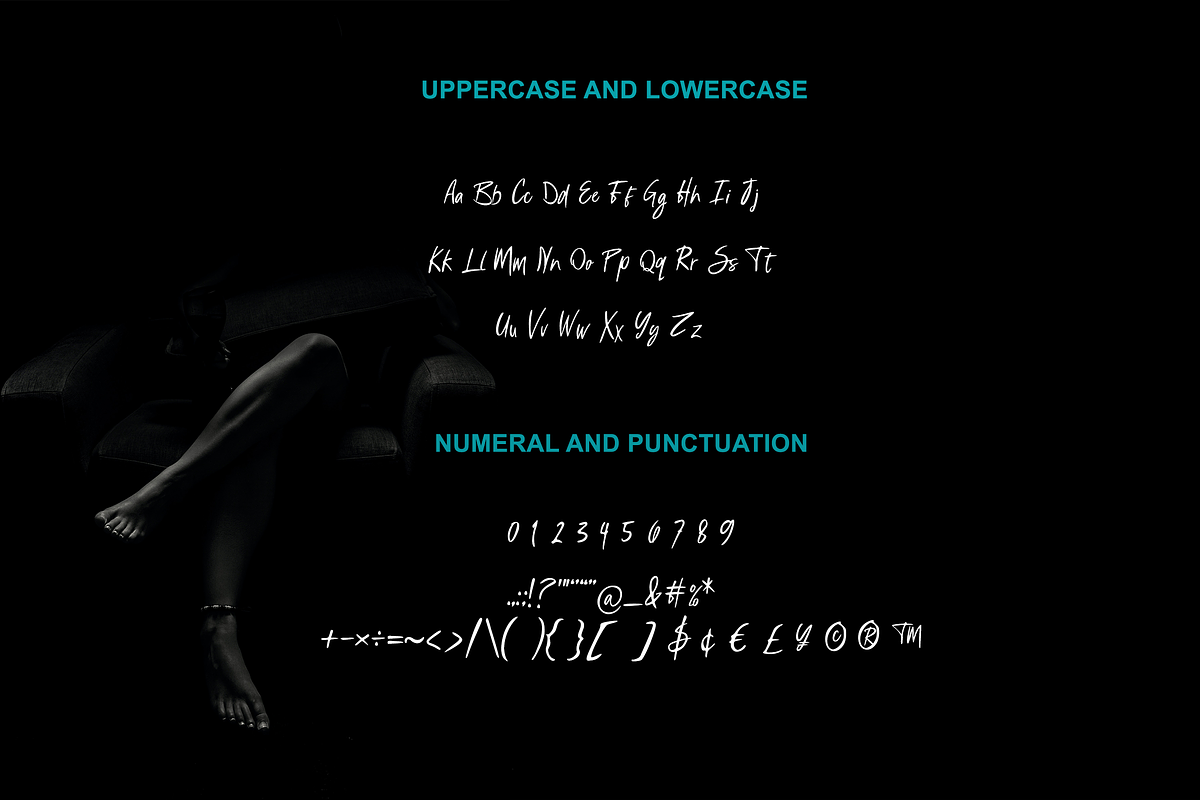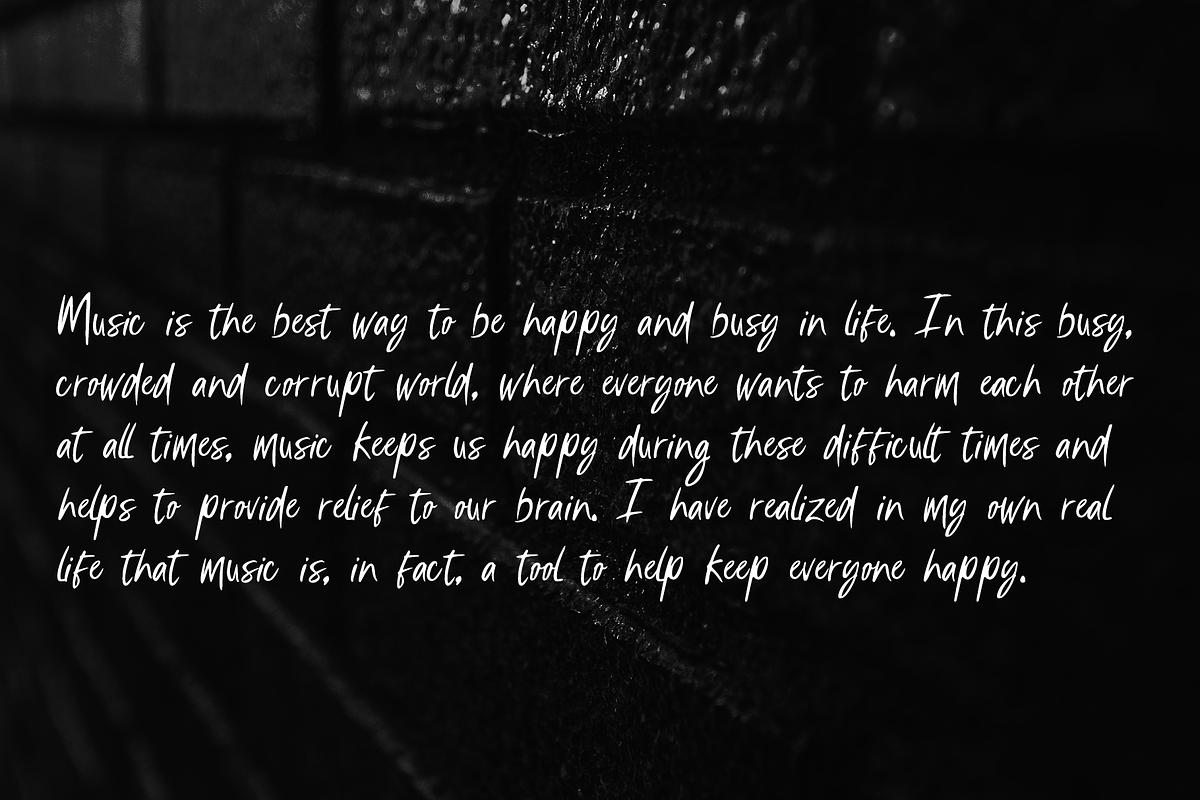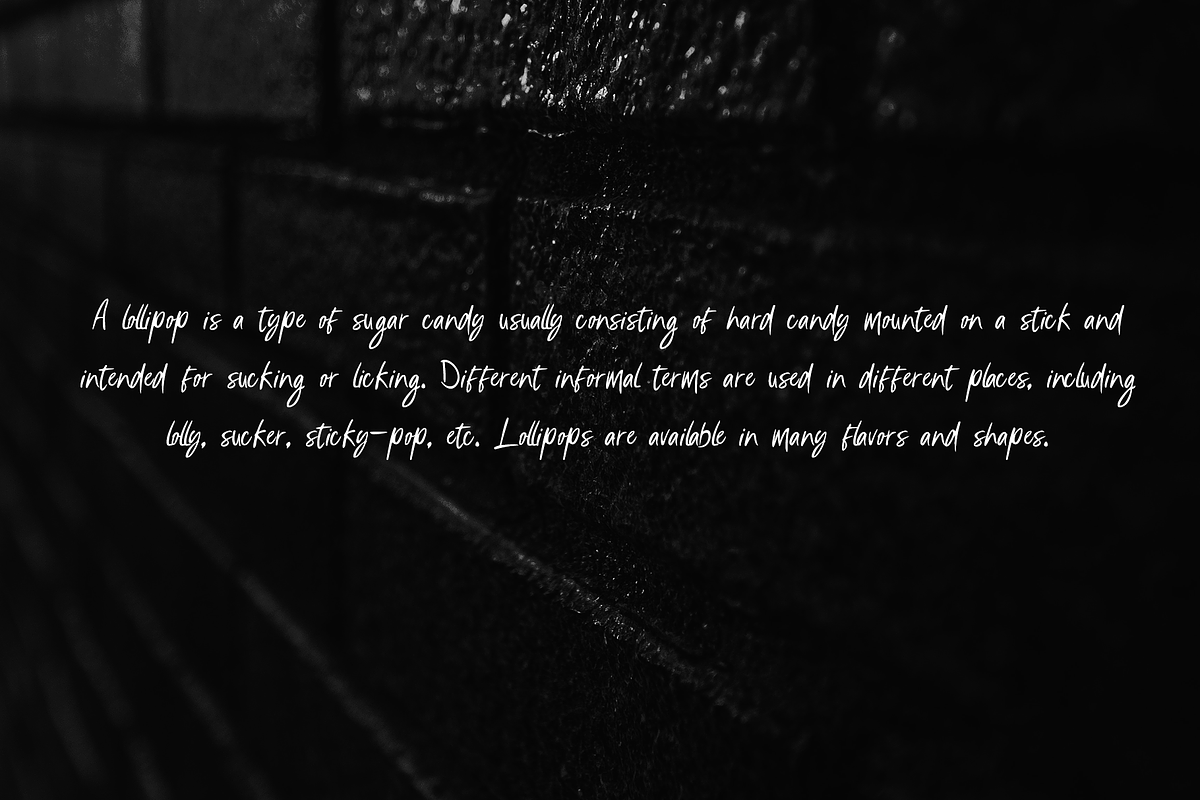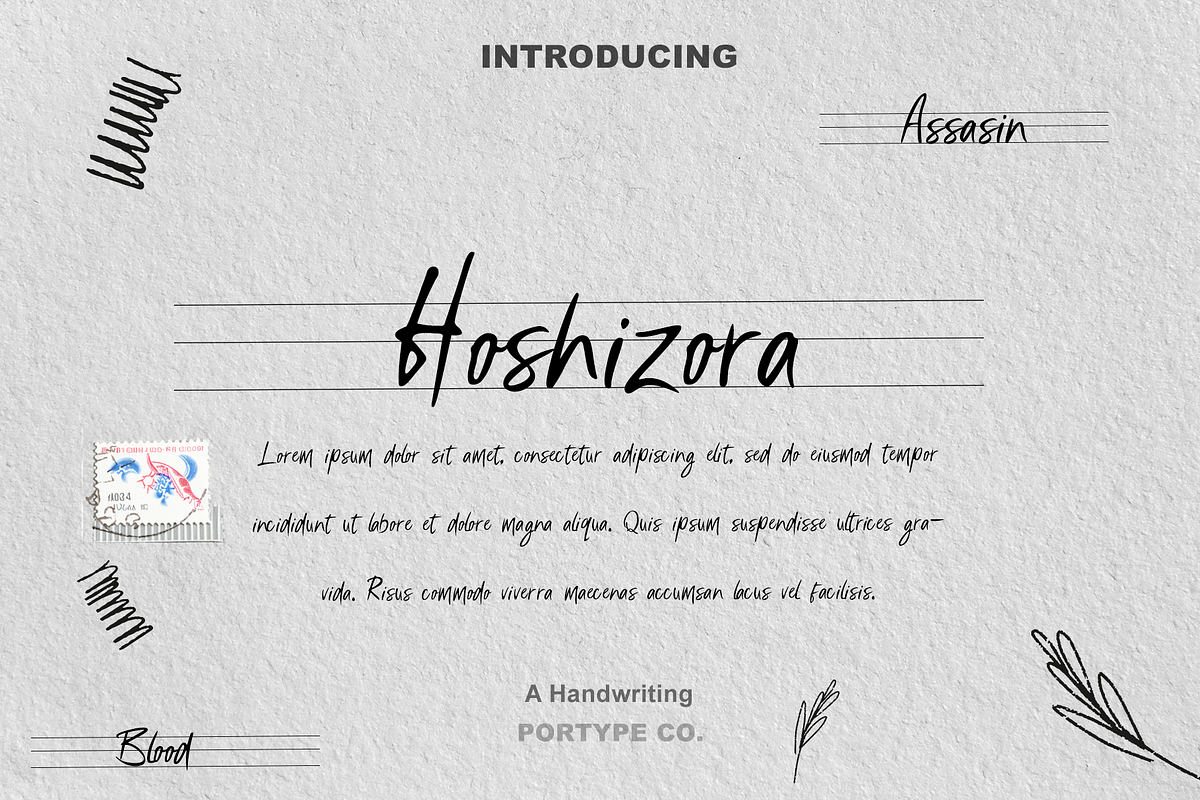
Hoshizora Font
Hoshizora Font is a typographic marvel that exudes a celestial elegance in every stroke. With its name meaning "Starry Sky" in Japanese, this font is a visual masterpiece that combines tradition and modernity, creating a unique and captivating visual experience.
Aesthetic Marvel: Hoshizora Font is a testament to the artistry of typography. Its characters are meticulously crafted, evoking a sense of grace and harmony. Each letter and symbol bears a unique beauty, as if they were delicately painted with the utmost precision and care.
Starry Inspiration: The name "Hoshizora" reflects the font's inspiration from the night sky. Its design carries a subtle resemblance to the constellations and the luminous stars, making it a symbol of boundless creativity and infinite possibilities. The font's celestial charm adds a touch of magic to any design.
Versatility Meets Elegance: Hoshizora Font is versatile in its application. It harmonizes effortlessly with various design projects, from branding to invitations, posters to websites. Its timeless appeal ensures it can adapt to diverse creative needs, infusing a touch of elegance into every context.
Balanced Simplicity: One of the font's most compelling features is its ability to balance simplicity with sophistication. The characters are inherently minimalist, yet they possess a depth and complexity that make them captivating. This duality allows Hoshizora Font to communicate diverse messages with a touch of understated beauty.
Cultural Reverence: Hoshizora Font pays homage to the rich cultural heritage of Japan. Each character embodies the legacy of Japanese calligraphy and brings a sense of tradition and authenticity to the digital world. It connects users to the profound history and artistry of Japanese writing.
Hoshizora Font is a work of art in itself, inviting designers, creatives, and enthusiasts to explore its celestial elegance. Its timeless beauty, versatility, and cultural significance make it a font that transcends mere typography and becomes a part of your creative journey. Whether used sparingly for accents or as a central element in your design, Hoshizora Font will undoubtedly leave a lasting impression with its celestial allure.